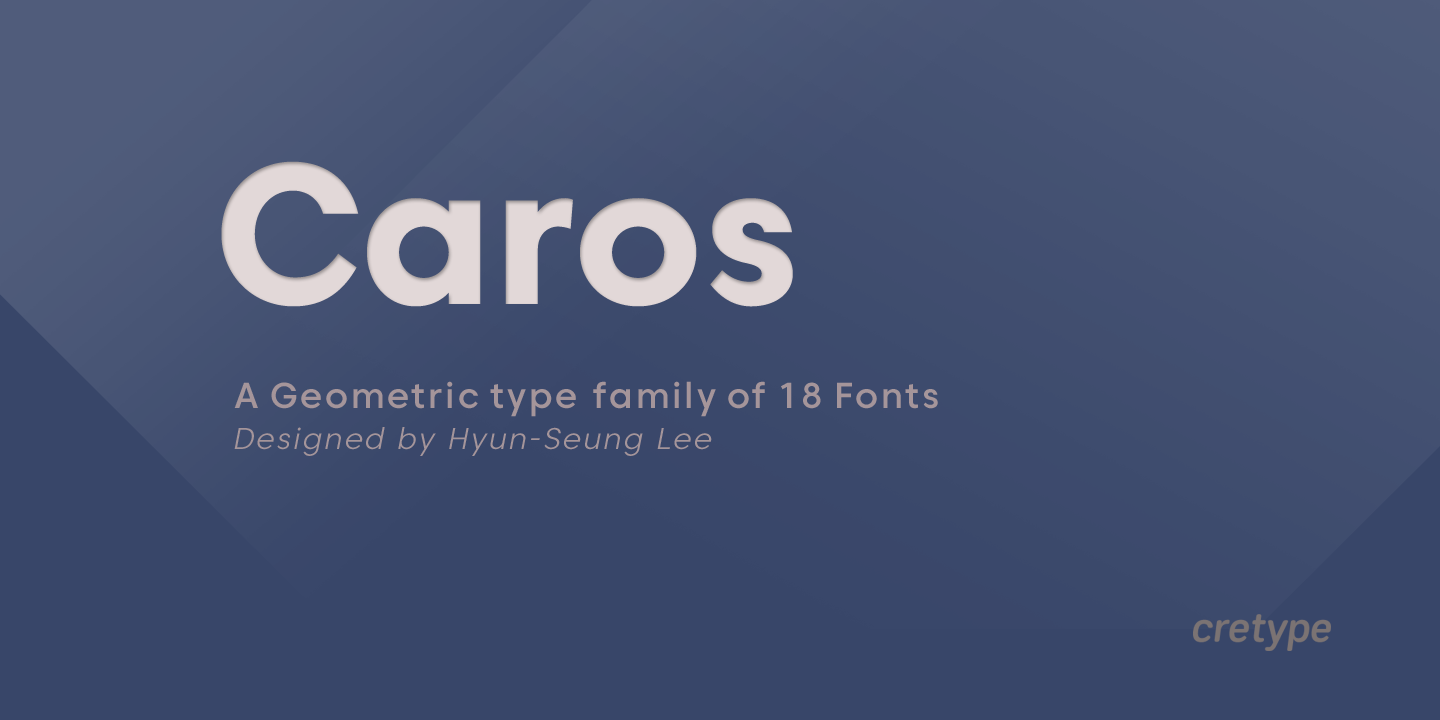
Caros Font is perfect for luxury brand identities, premium product packaging, high-end fashion labels, elegant jewelry branding, sophisticated wine labels, upscale restaurant menus, exclusive event invitations, luxury hotel signage, prestige automotive branding, and refined corporate communications that require distinguished elegance and timeless sophistication.
This font is exciting because it embodies the essence of refined luxury and precious elegance with carefully crafted letterforms that reflect the exceptional quality and exclusive character associated with the most treasured and valuable experiences. Caros Font features sophisticated proportions and elegant details that communicate prestige, rarity, and the distinguished quality that defines truly precious brands and premium experiences.
Caros Font family includes Regular, Bold, Light, Elegant, Refined, Luxury, Premium, and Exclusive versions, plus precious symbols, luxury ornaments, elegant flourishes, and sophisticated design elements that enhance the distinguished aesthetic and provide comprehensive solutions for high-end and luxury brand applications.
For luxury and premium design projects, Caros Font Free Download delivers unmatched sophistication and exclusive appeal. The font's refined letterforms and precious character make it perfect for luxury brands, high-end retailers, and exclusive services seeking to communicate rarity, quality, and exceptional value. Its distinguished design appeals to affluent audiences who appreciate exclusivity and premium craftsmanship. The character set includes luxury symbols and elegant alternates that enhance the premium brand experience. Professional designers appreciate its ability to convey both exclusivity and timeless elegance while maintaining excellent readability across luxury packaging, premium marketing materials, and high-end brand communications, making it essential for brands that want to project the precious quality and distinguished character that defines true luxury and positions them among the most coveted and treasured brands in their market.